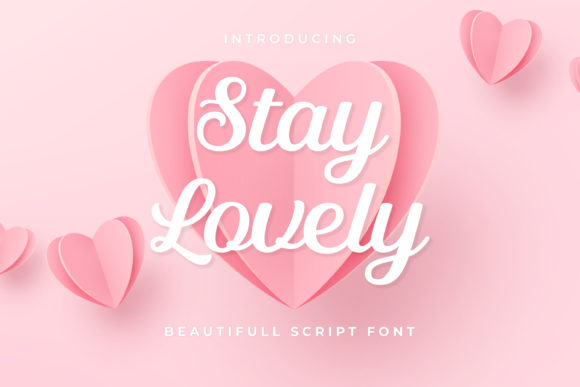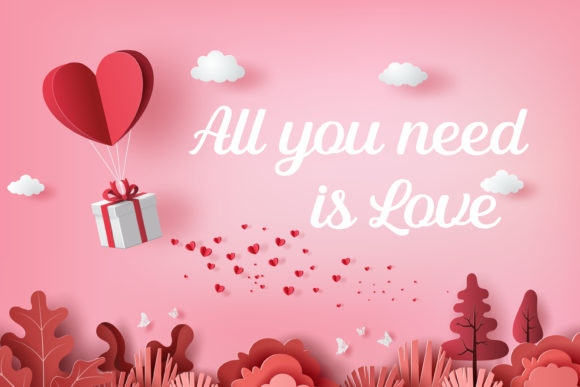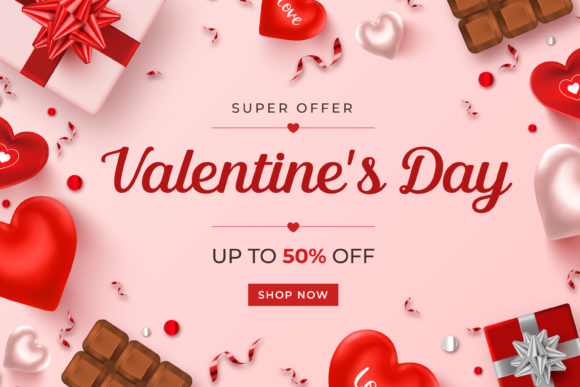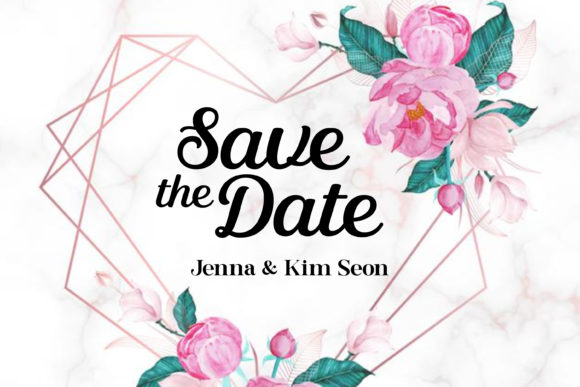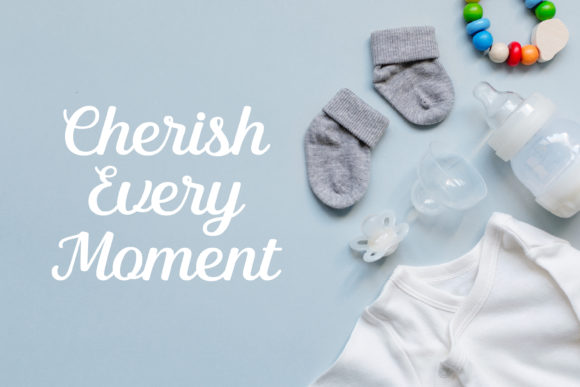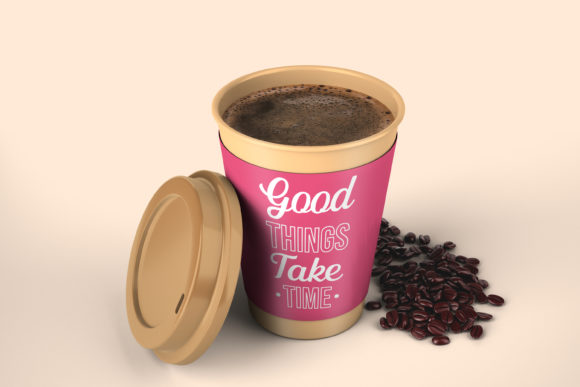
Stay Lovely Font
About Stay Lovely Font
Stay Lovely sounds like a delightful font that can add a touch of elegance and romance to a wide range of design projects. Here’s how Stay Lovely can enhance different creative endeavors:
1. Wedding Invitations: Stay Lovely’s sweet and romantic spark makes it a perfect choice for creating enchanting and elegant wedding invitations. Its elegant letterforms can set the tone for a beautiful and memorable wedding celebration.
2. Love Letters and Cards: Expressing love and affection becomes even more charming with Stay Lovely. Its unique and sweet design adds a sense of warmth and intimacy to love letters and romantic cards, making the recipient feel cherished.
3. Quotes and Greeting Cards: Stay Lovely’s elegant and sweet style makes it an excellent option for quotes and greeting cards. Whether it’s an inspirational quote or a heartfelt sentiment, Stay Lovely adds a touch of magic and romance to every word.
4. Logos and Branding: For businesses or brands that want to convey an elegant and romantic image, Stay Lovely can be a wonderful choice. Its sweet and charming elements add a memorable and personal touch to logos and branding materials.
5. Social Media Graphics: Stay Lovely can make social media graphics stand out with its elegant and romantic style. Whether used for Instagram posts, Facebook covers, or Pinterest graphics, Stay Lovely adds a touch of enchantment to the visuals.
6. Personalized Stationery: Design personalized stationery using Stay Lovely to create a delightful and distinctive correspondence experience. Personal letters, notes, and invitations become even more special with this font.
7. Website and Blog Design: Stay Lovely’s sweet and elegant feel can enhance website headers, blog post graphics, or navigation elements, giving the online presence a unique and captivating touch.
8. Product Packaging: Incorporate Stay Lovely into product packaging to add a romantic and charming touch. From beauty products to gift items, Stay Lovely adds a sense of elegance and enchantment to the packaging.
Overall, Stay Lovely’s ability to add elegance and a romantic spark to various designs makes it a versatile and captivating font choice. Its sweet and charming style brings a sense of enchantment and sophistication to every design project, making it an excellent fit for any idea that needs a special and delightful touch.